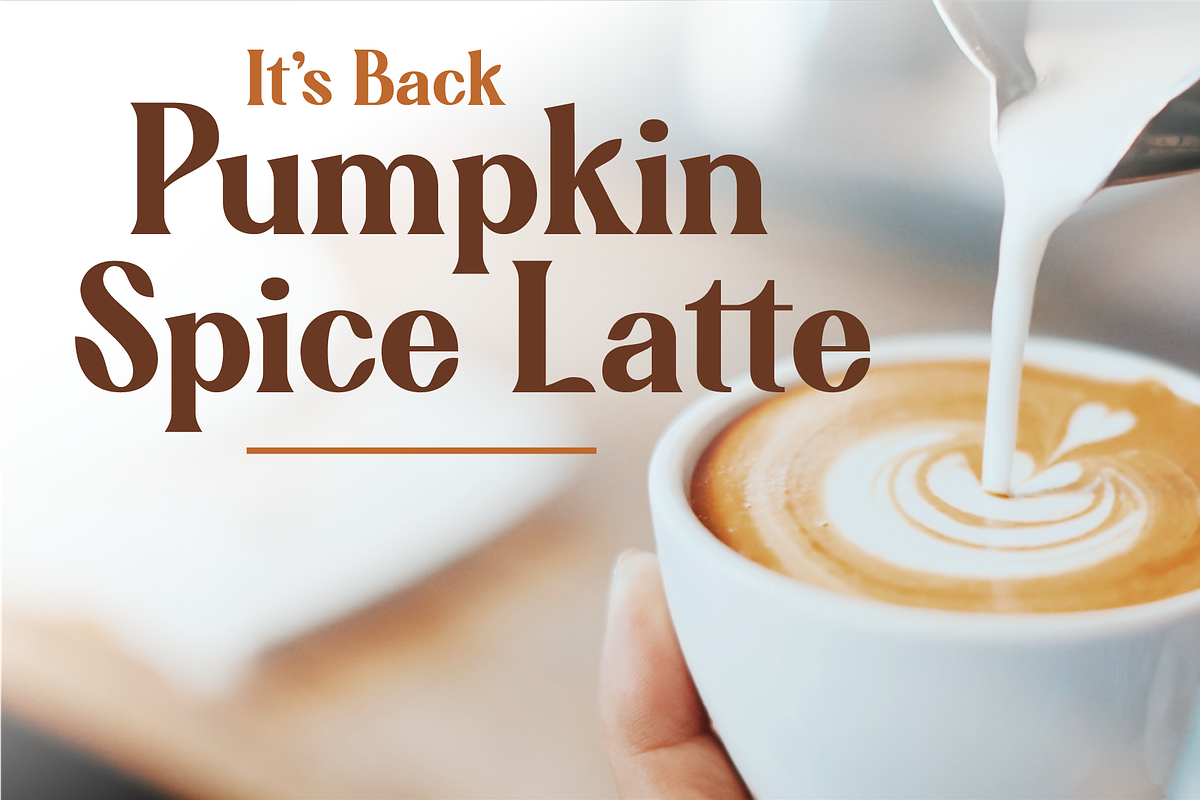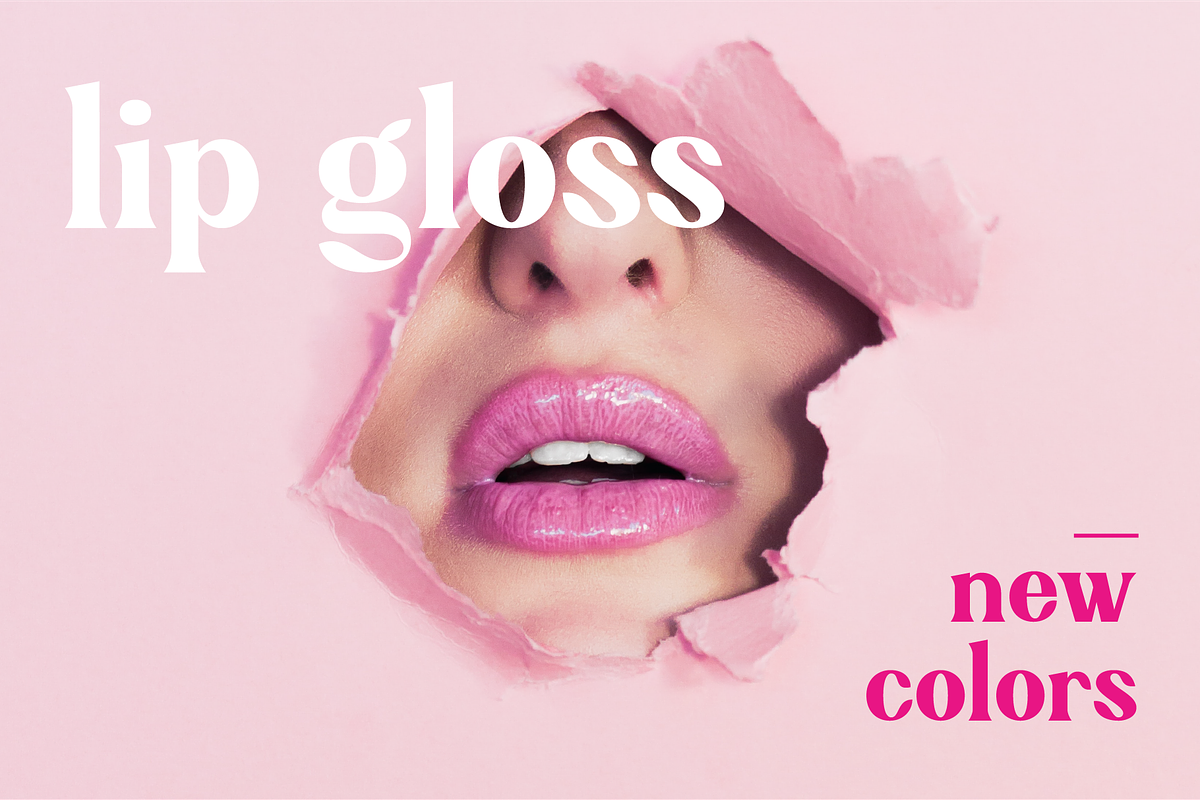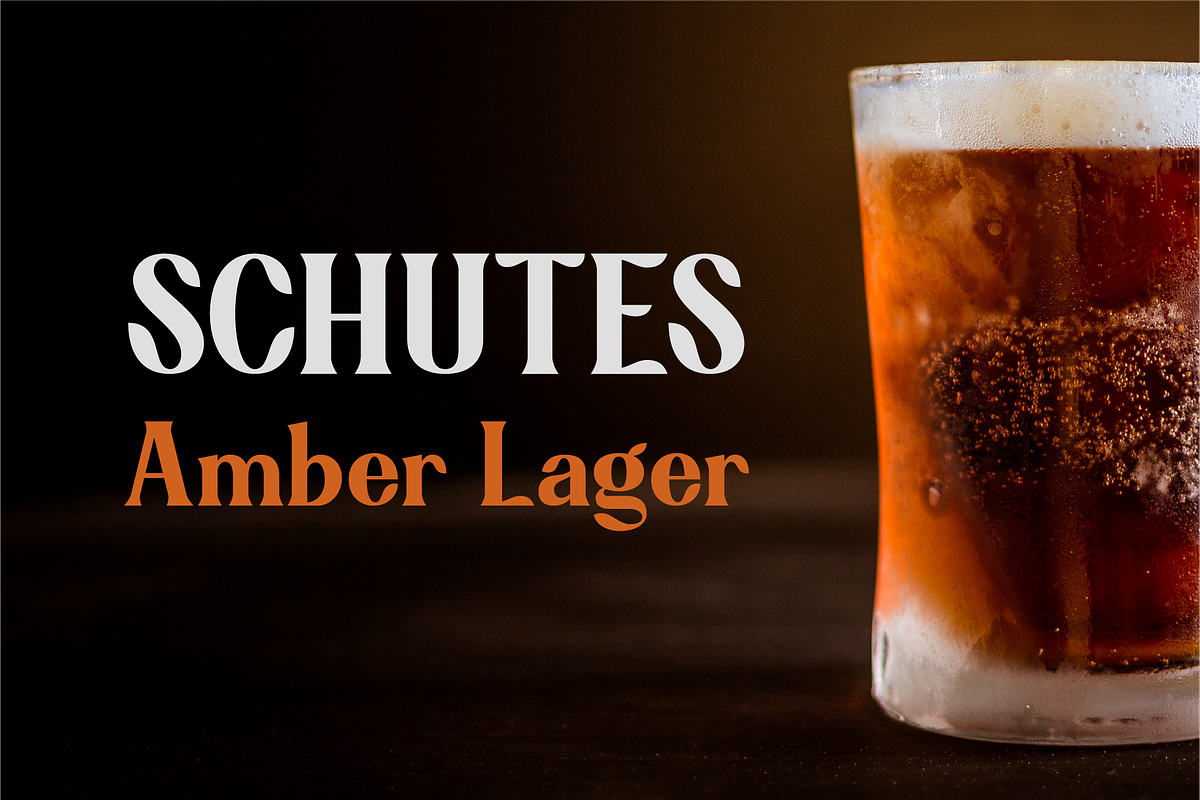
Jensynn
Jensynn is an uppercase and lowercase serif font that showcases elegant curves and well-balanced thick/thin strokes. This font is fully kerned saving you time and energy during use. The ligatures are inspired by classic typefaces while maintaining a strong modern style. Included in this font is a full set of glyphs as well as handful of versatile alternates. Enjoy!